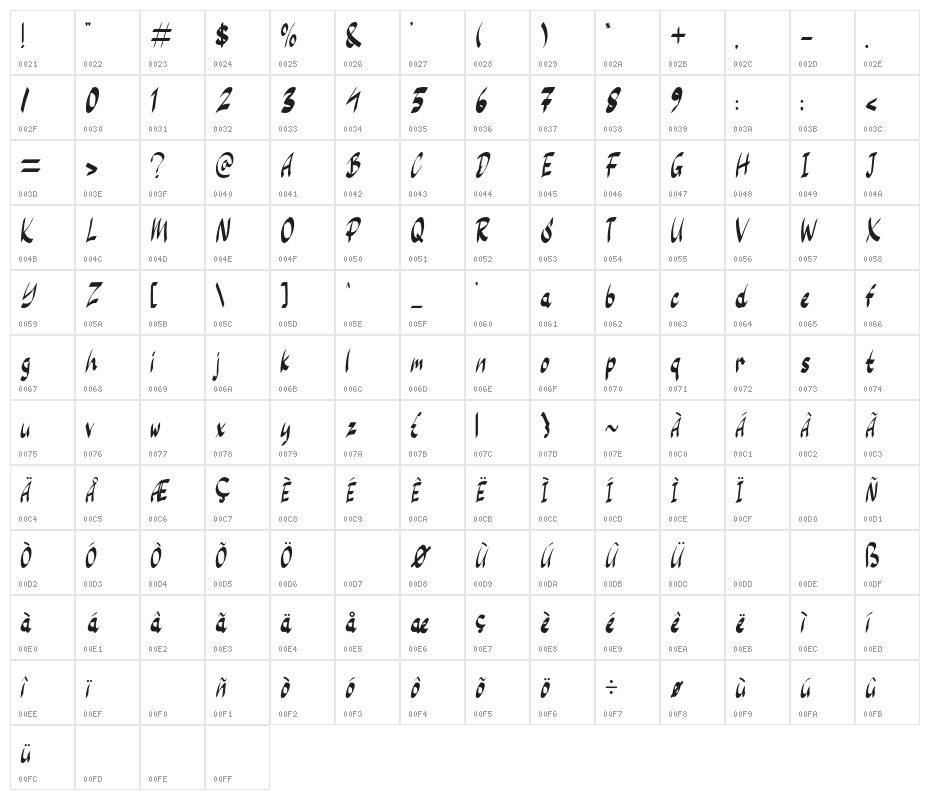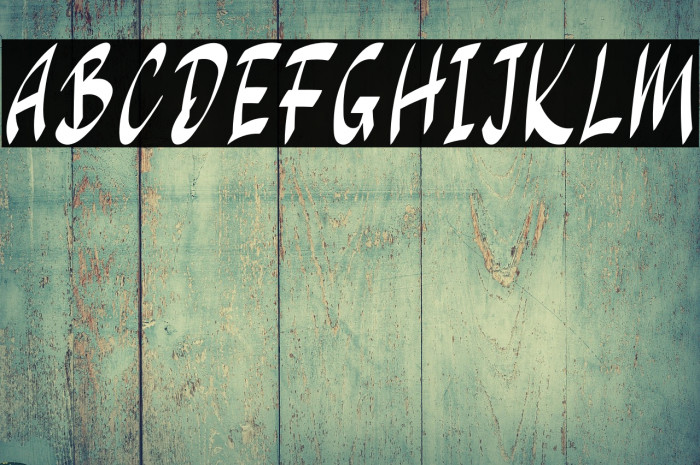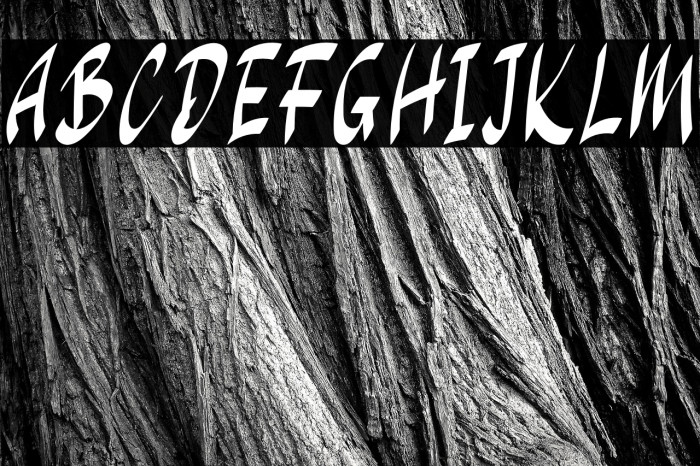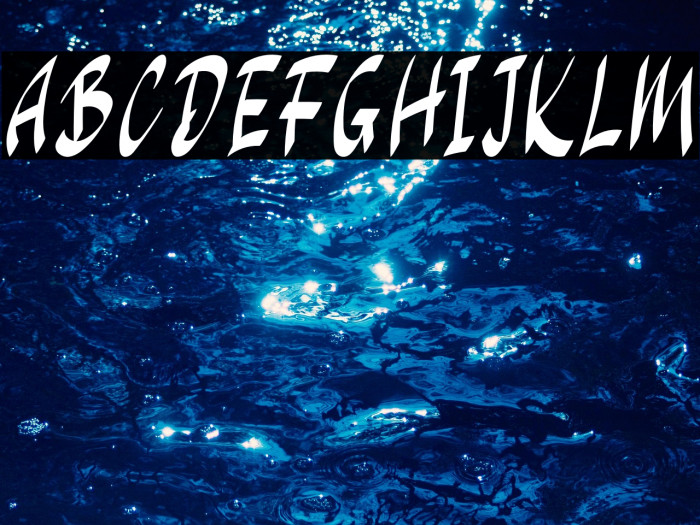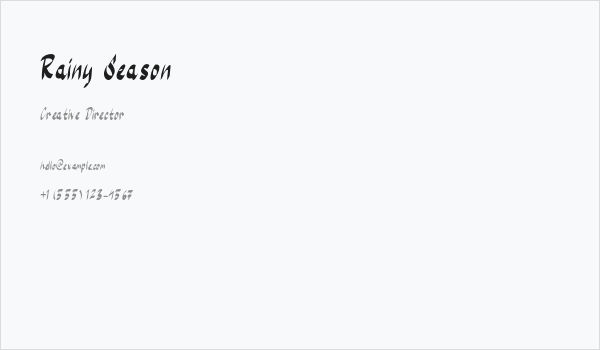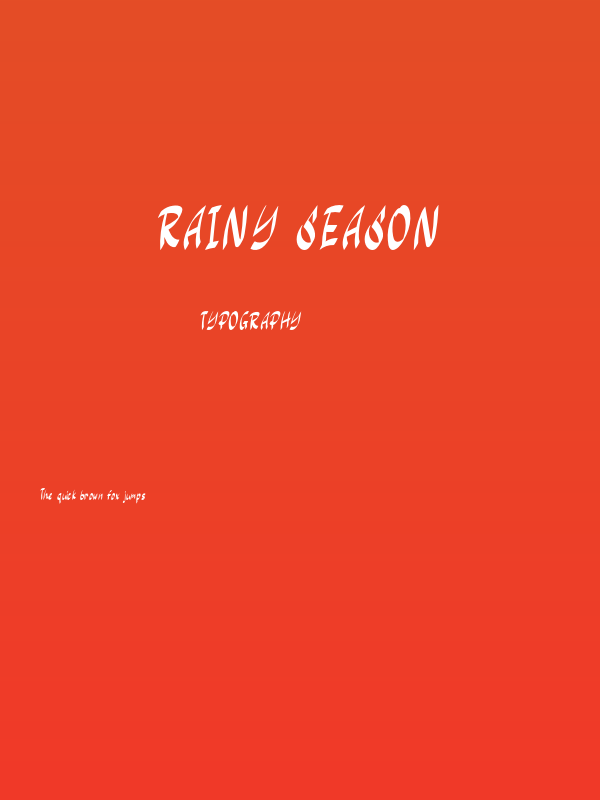
Rainy Season Font
Rainy Season Description
This font features a dynamic and expressive style, characterized by its fluid, brush-like strokes that convey a sense of movement and energy. The letters have a slight slant, adding to the impression of speed and fluidity. The uppercase letters are bold and prominent, while the lowercase letters maintain a consistent flow, enhancing readability. The numbers and special characters follow the same stylistic cues, ensuring a cohesive appearance across all glyphs. This font's unique design makes it stand out, offering a blend of artistic flair and legibility.
| Proposed Projects | Ideal for creative projects such as posters, branding, and artistic invitations. |